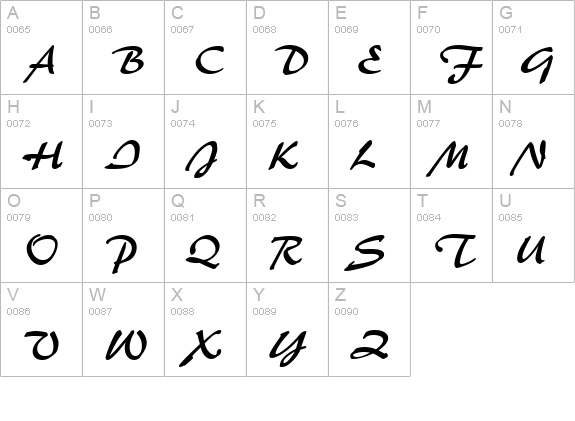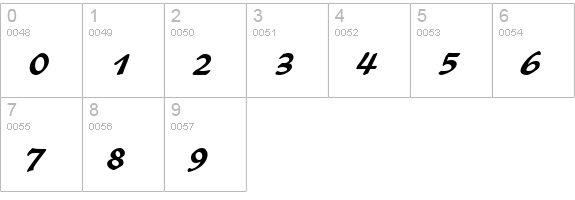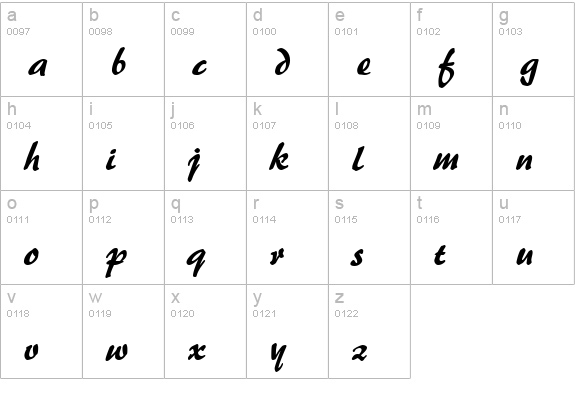
Brush 445 BT Font Details
Brush 445 BT is a stylish and versatile brush font that exudes a sense of creativity and individuality. Its bold and dynamic strokes give it a modern and artistic look, perfect for adding a touch of flair to your designs. Whether you're working on a logo, poster, or any other project that requires a unique and eye-catching typeface, Brush 445 BT is sure to make a statement. What's even better is that Brush 445 BT is available for free download at FontsMarket.com. This means you can easily access this fantastic font and incorporate it into your projects without any cost. Don't miss out on the opportunity to enhance your designs with the distinctive charm of Brush 445 BT – download it for free today!